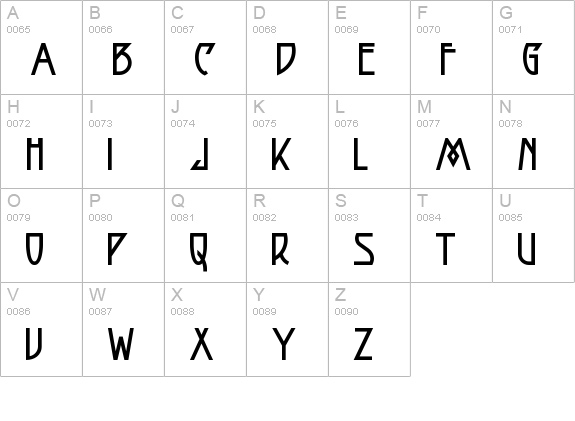
Fortune Cookie NF Font Details
Fortune Cookie NF font is a whimsical and charming typeface that captures the essence of traditional fortune cookies with its unique and playful design. This font features elegant strokes and a touch of Asian influence, making it perfect for adding a touch of mystique and fun to your projects. The Fortune Cookie NF font is freely available to download at FontsMarket.com, allowing you to easily incorporate this delightful typeface into your designs without any cost. Whether you're working on branding, packaging, invitations, or any other project that could use a hint of fortune cookie charm, this font is sure to bring a smile to your audience's face. Add a touch of luck and whimsy to your designs with Fortune Cookie NF font today!